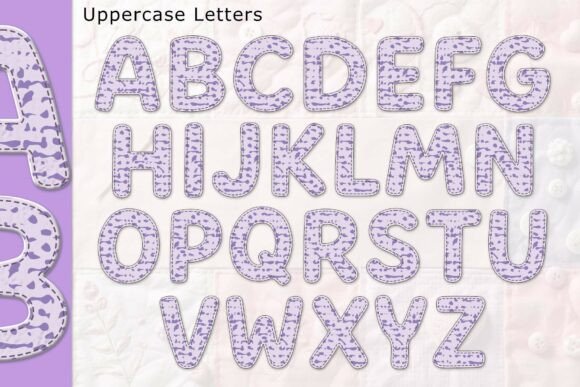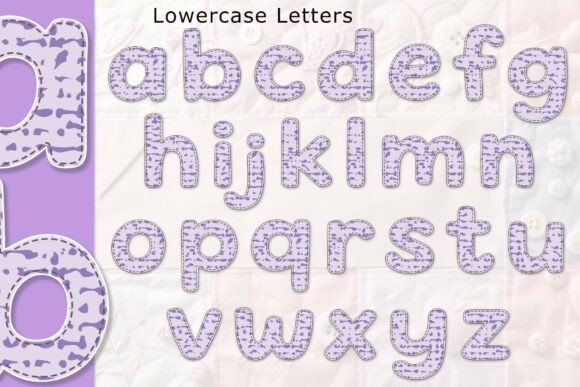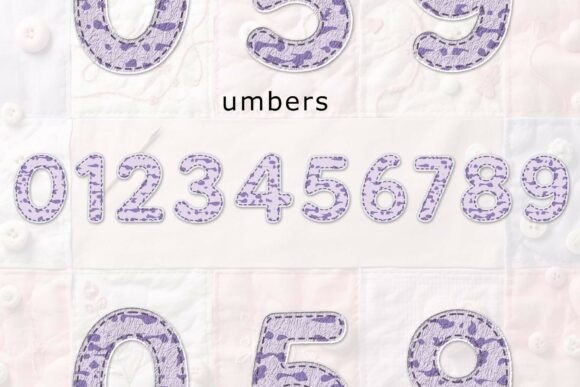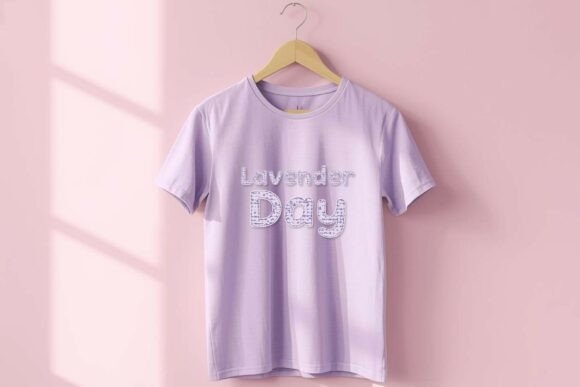
Introduction to Dreamy Lavender Splash Font
Who hasn’t had a moment where they’re browsing through design inspiration boards, and suddenly, a particular font catches their eye? For me, that moment came when I stumbled upon the enchanting Dreamy Lavender Splash Font. Its soft lavender tones and charming splash texture immediately transported me to a world of creativity and possibility. As a designer, I know how valuable it is to have a reliable design resource that can add a touch of whimsy and personality to our projects.
The Dreamy Lavender Splash Font is more than just a pretty face – it’s a high-quality design tool that can elevate your creative projects to the next level. With its transparent background and easy-to-read design, it’s perfect for kids’ designs, t-shirts, stickers, and greeting cards. Whether you’re a seasoned designer or just starting out, this font is a must-have for anyone looking to add a splash of dreamy charm to their work.
Key Features of Dreamy Lavender Splash Font
- Unique, dreamy design with a touch of lavender hue, perfect for adding a whimsical feel to your work
Honest Review: Dreamy Lavender Splash Font
As a designer, I’m always on the lookout for high-quality design resources that can elevate my creative projects. The Dreamy Lavender Splash Font caught my eye, and I was excited to try it out.
What works well is the font’s versatility and unique design. The dreamy, hand-painted feel is perfect for adding a touch of whimsy to a design, and the transparent background makes it easy to use with any background image or color.
- ✨ Unique and creative design
- ✨ Transparent background for easy use
However, there are a few limitations to consider. The font may not be suitable for formal or corporate designs, as it’s quite playful and decorative. Additionally, the font files are not as extensive as some other fonts, with only a few weights and styles available.
Overall, I’m impressed with the Dreamy Lavender Splash Font. While it may not be perfect for every project, it’s a great addition to any designer’s toolkit. With its unique design and high-quality files, it’s a great choice for anyone looking to add a creative touch to their work.
Tips for Getting the Most Out of Dreamy Lavender Splash Font
For the best results, use the Dreamy Lavender Splash Font on a transparent background. This will allow the font to stand out and add a touch of elegance to your designs.
The Dreamy Lavender Splash Font is perfect for creative projects that require a touch of sophistication, such as:
- Birthday party invitations and decorations
- Personalized gifts and cards